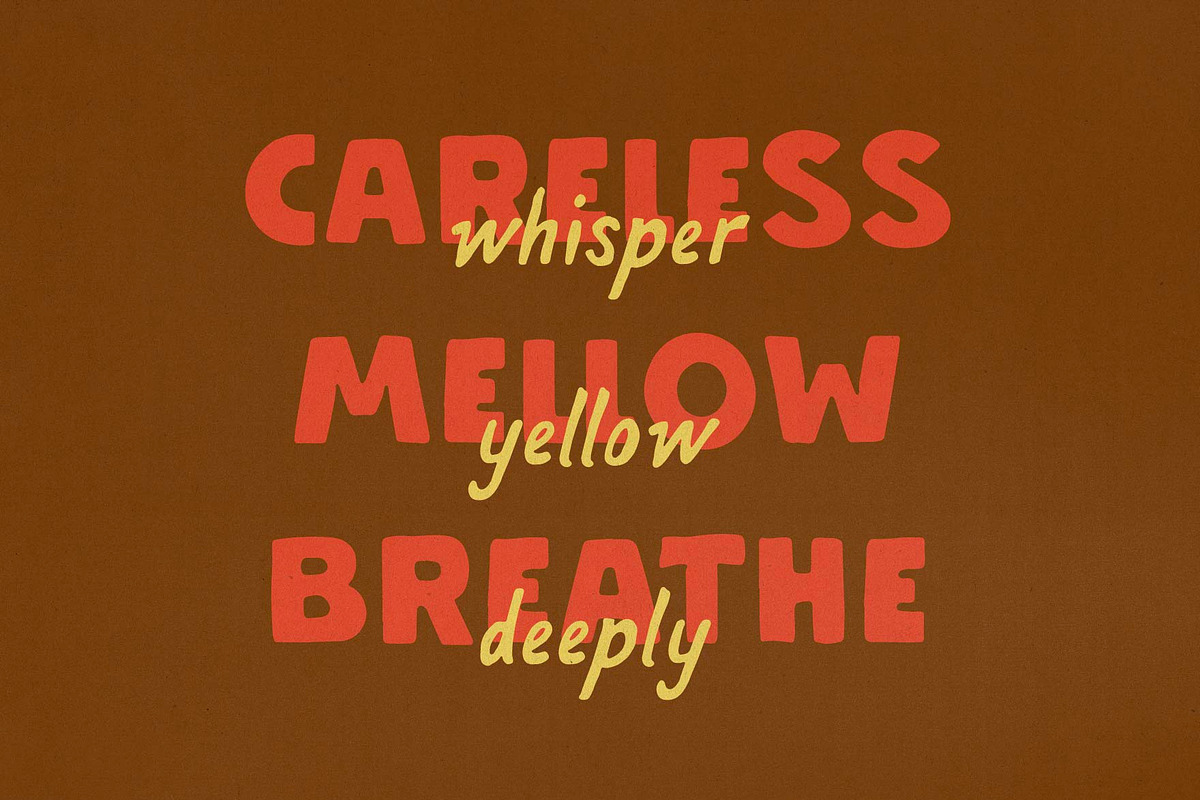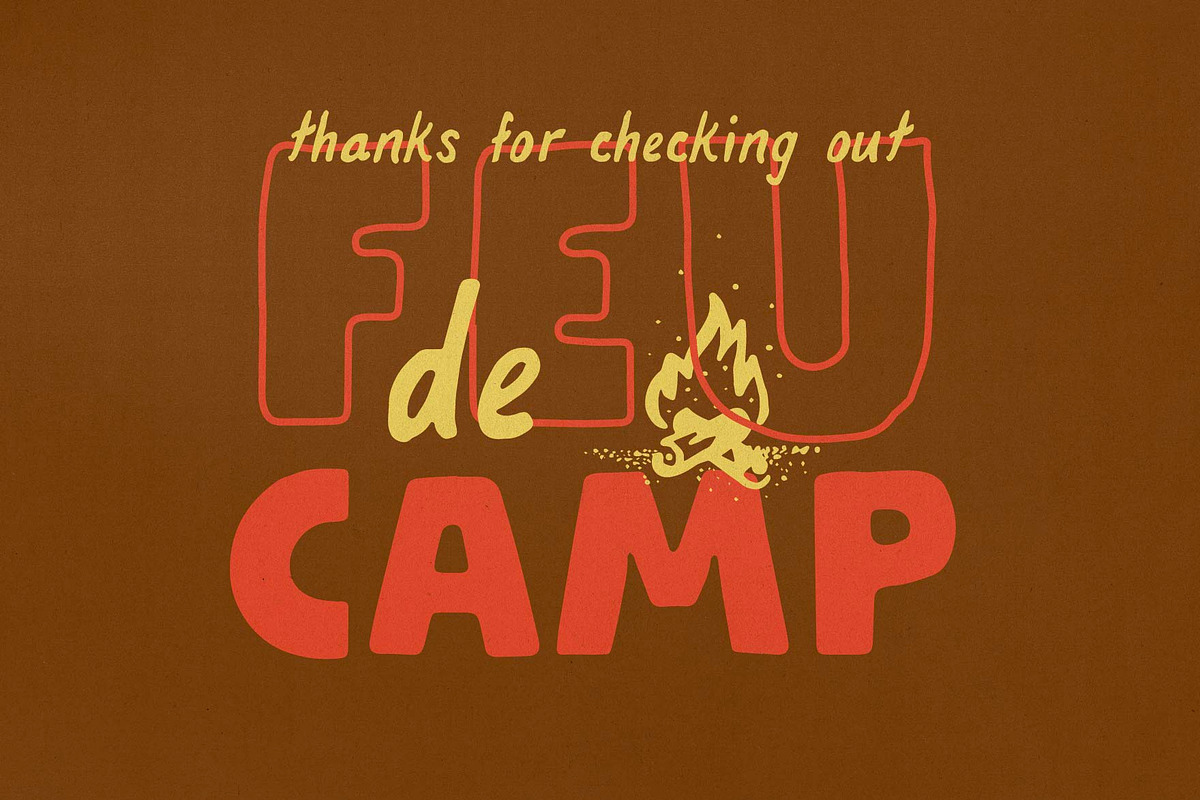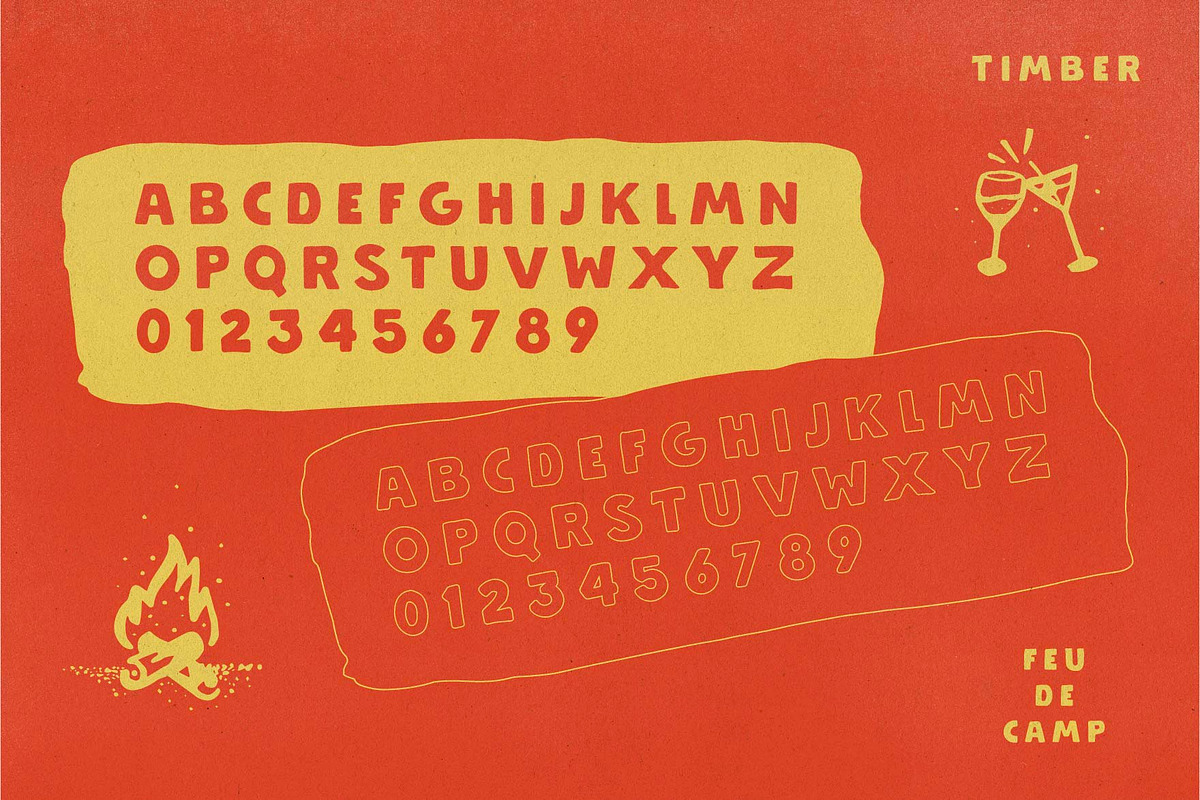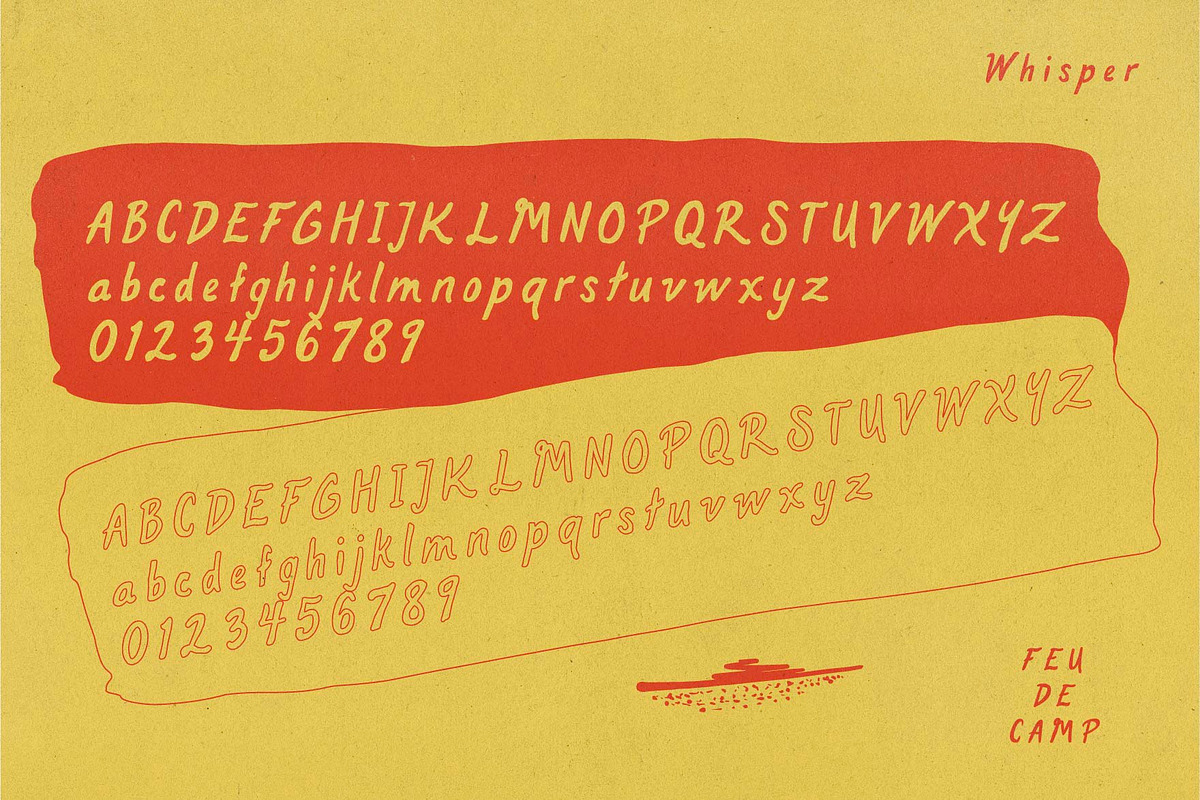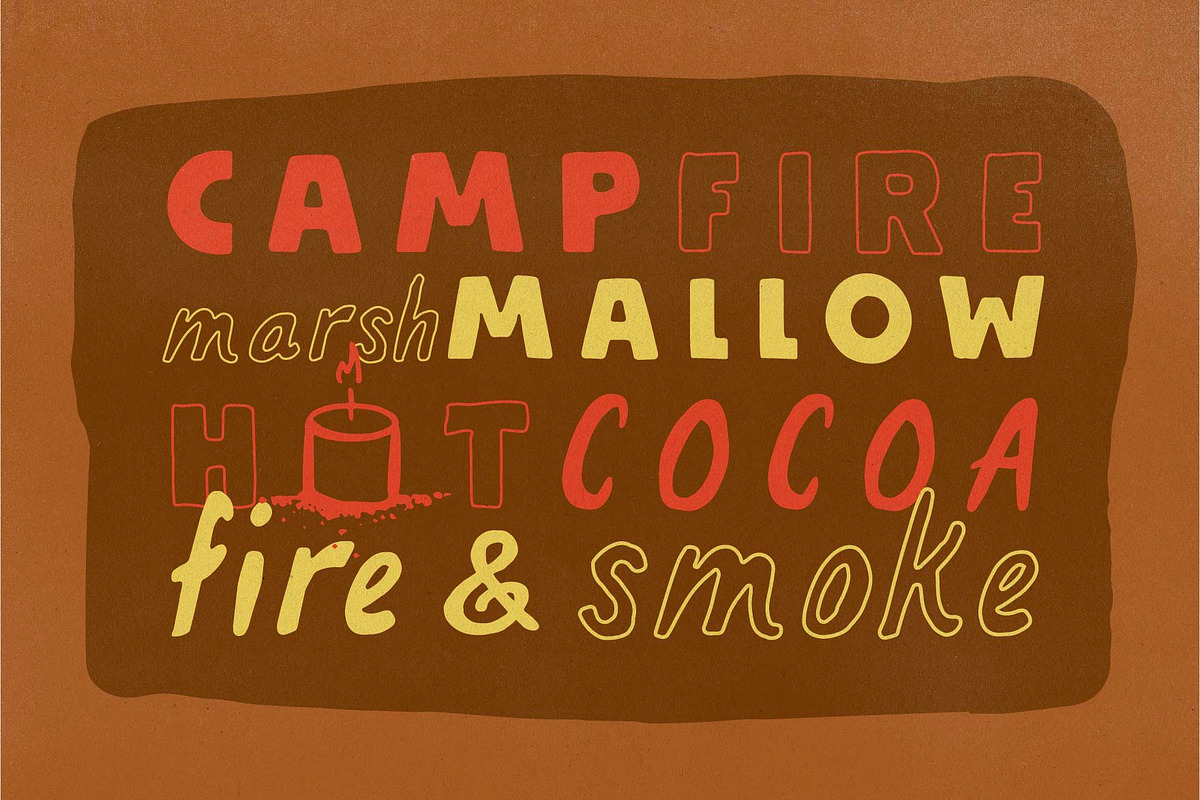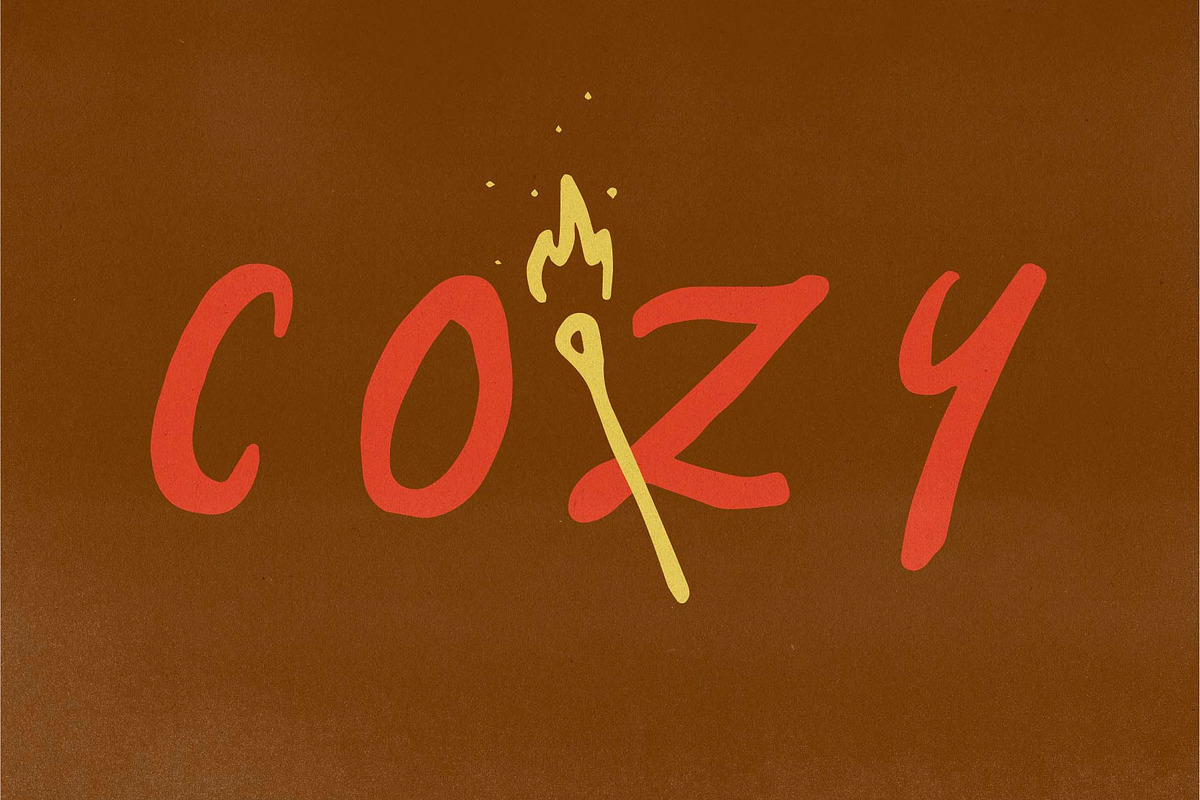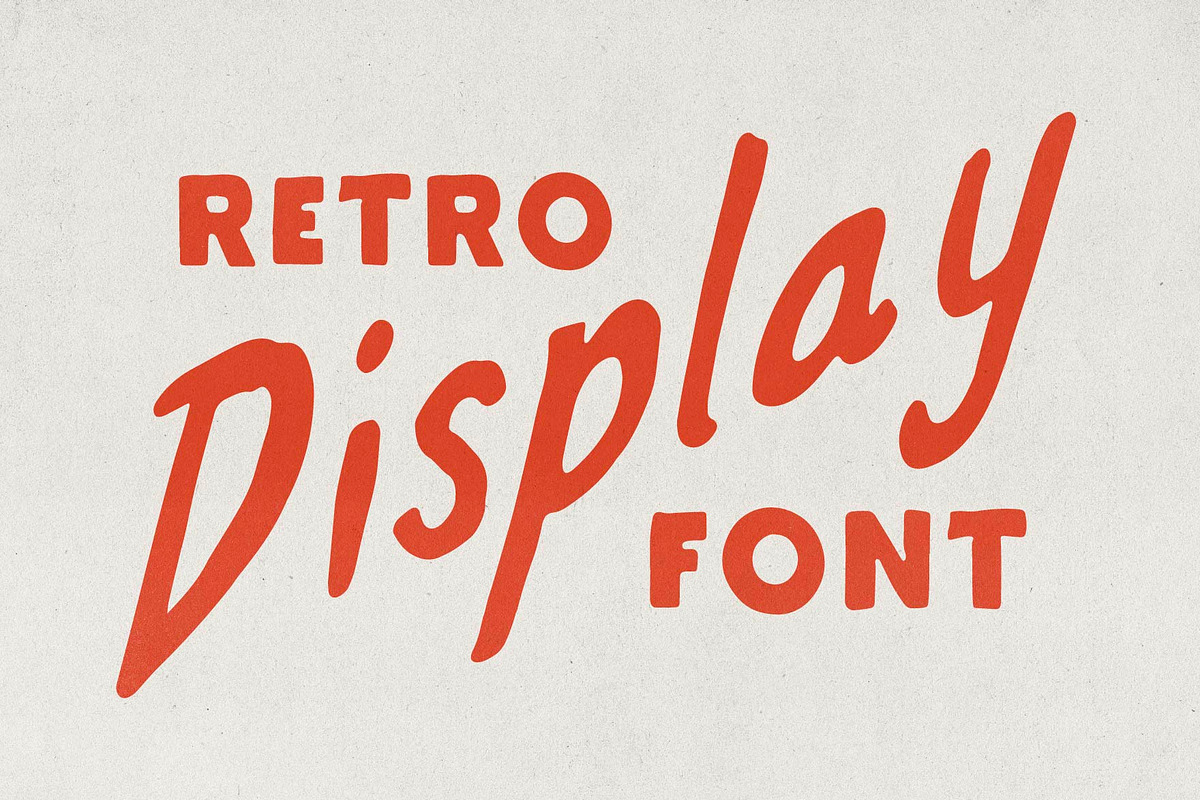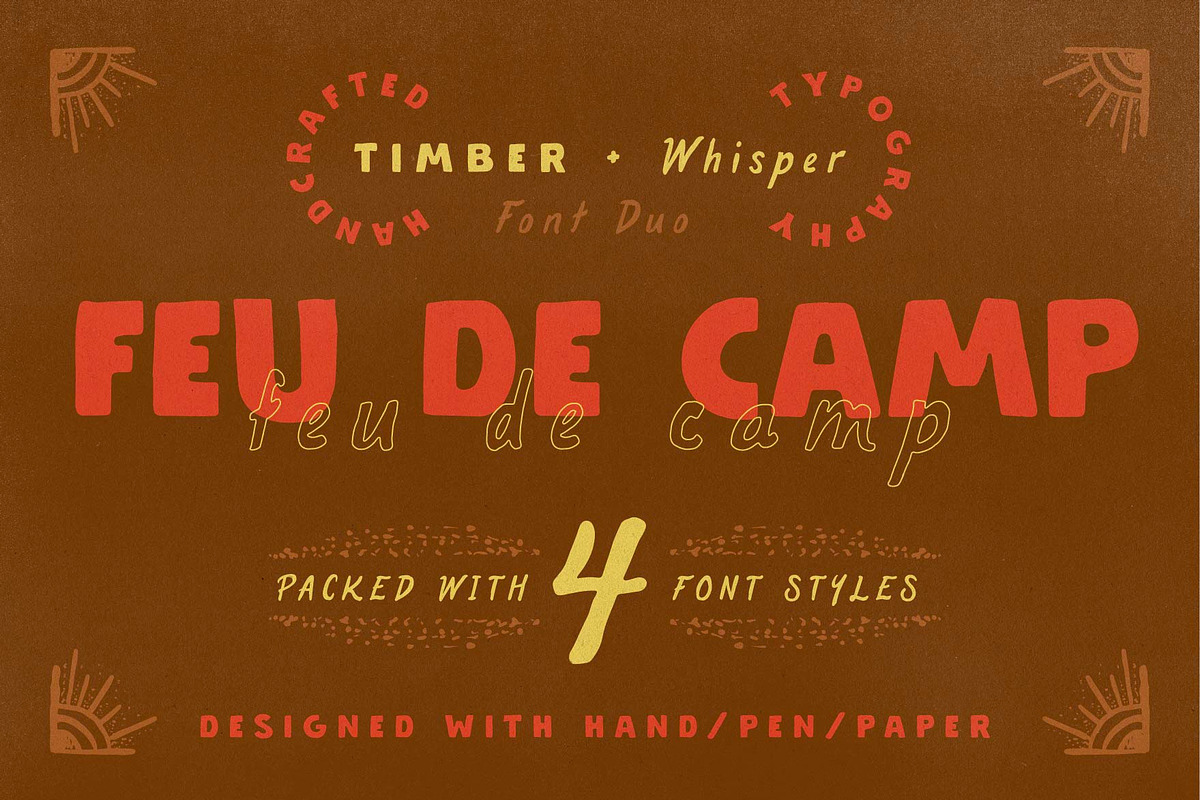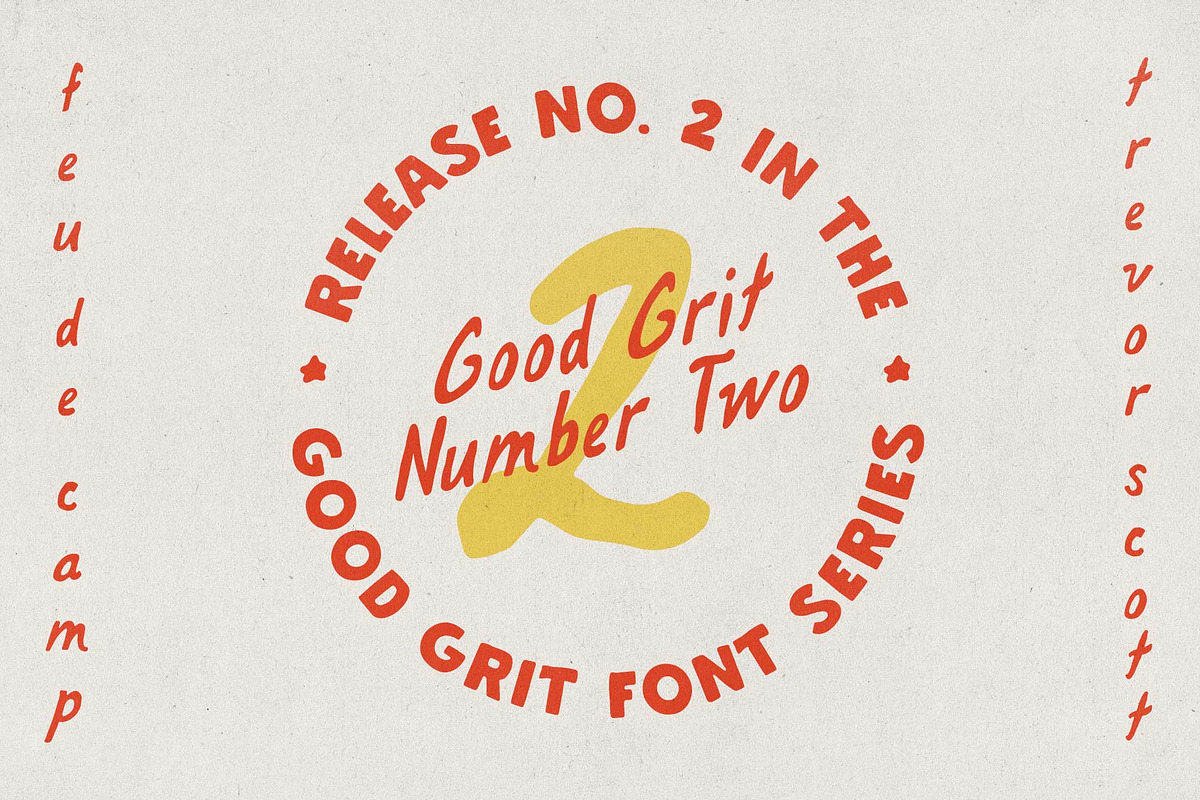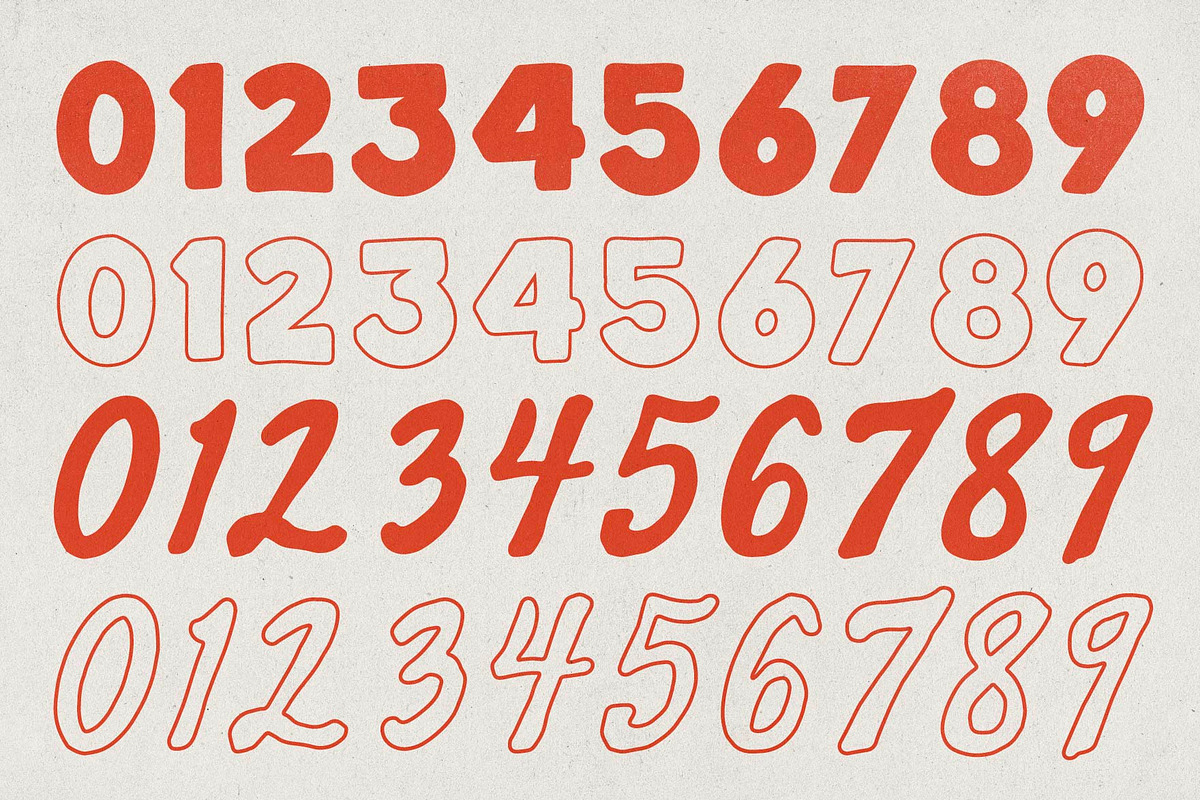
Feu de Camp - Handmade Font Duo
Feu de Camp – "Campfire"
Feu de Camp is a hand-drawn display font duo. Includes an all caps, chunky display font (timber) as well as a soft-spoken, relaxed font (whisper) that pair perfectly together. Feu de camp has a true hand-drawn feel, and strives to be approachable and sincere. Inspired by a campfire night.
Feu de Camp is a great foundation for...
Posters, social media artwork, package design, T-shirt graphics, merchandise, logos, and anywhere a friendly, retro, hand-crafted font with character is needed!
Perfectly Imperfect
The font was completely created by hand, meaning each letter is unique and different from one another – subtle rough edges and slight imperfections make Feu de Camp a creatively crafty font.